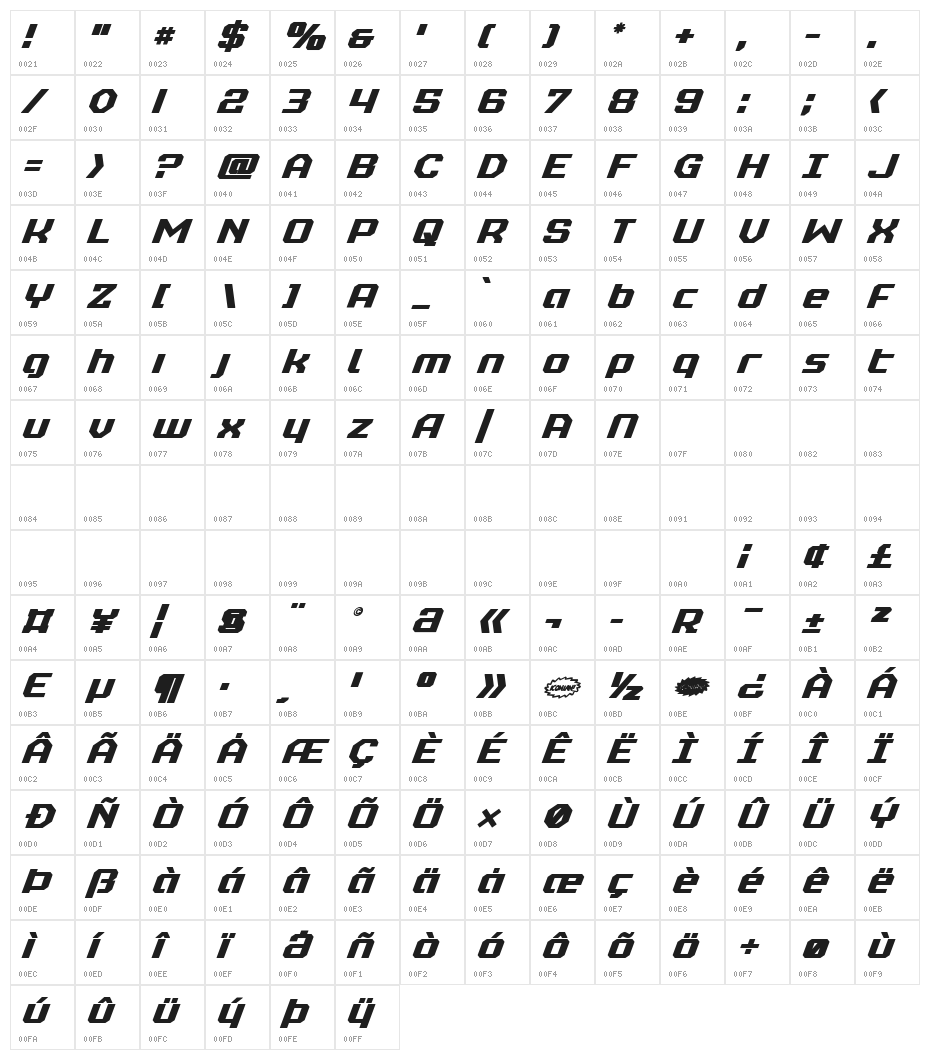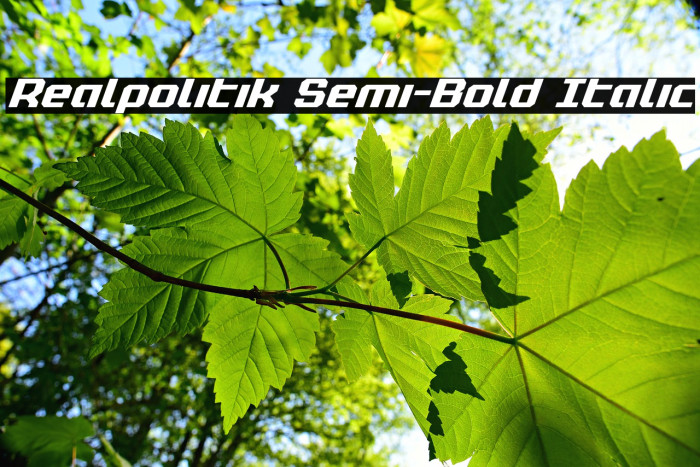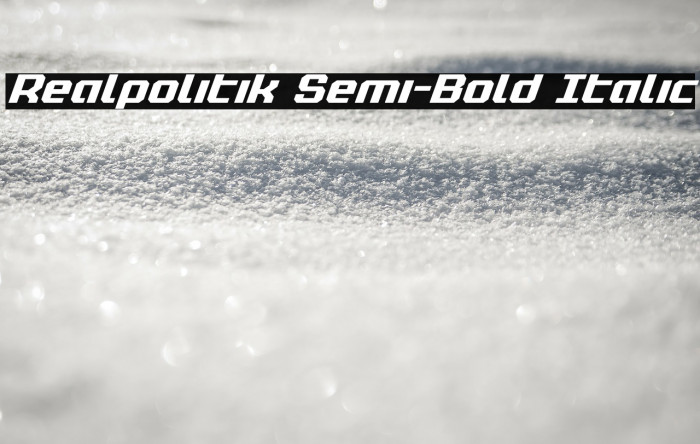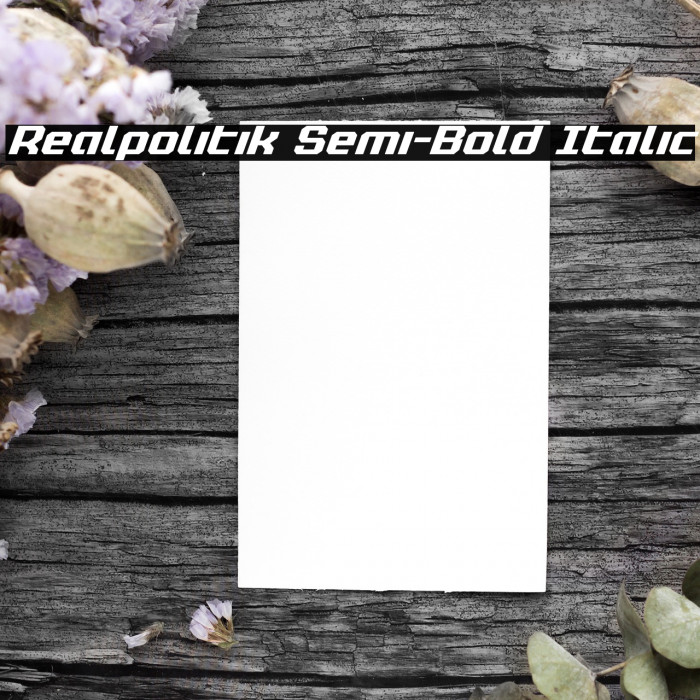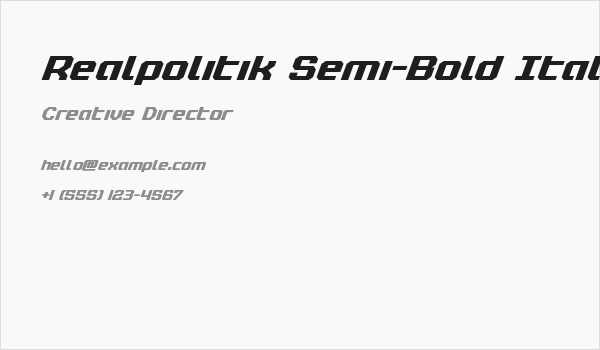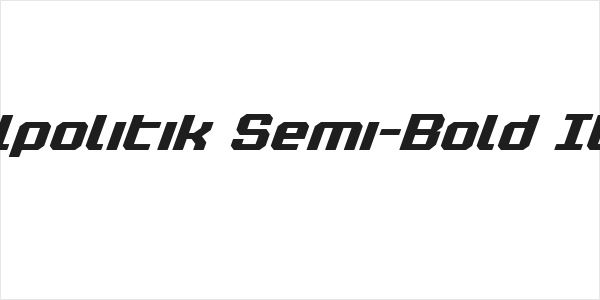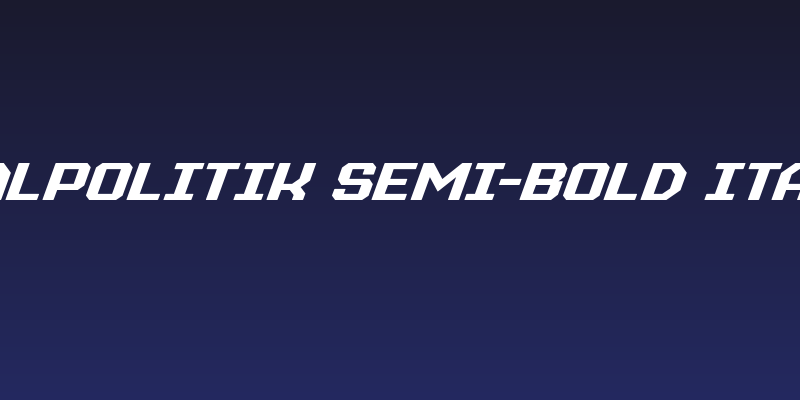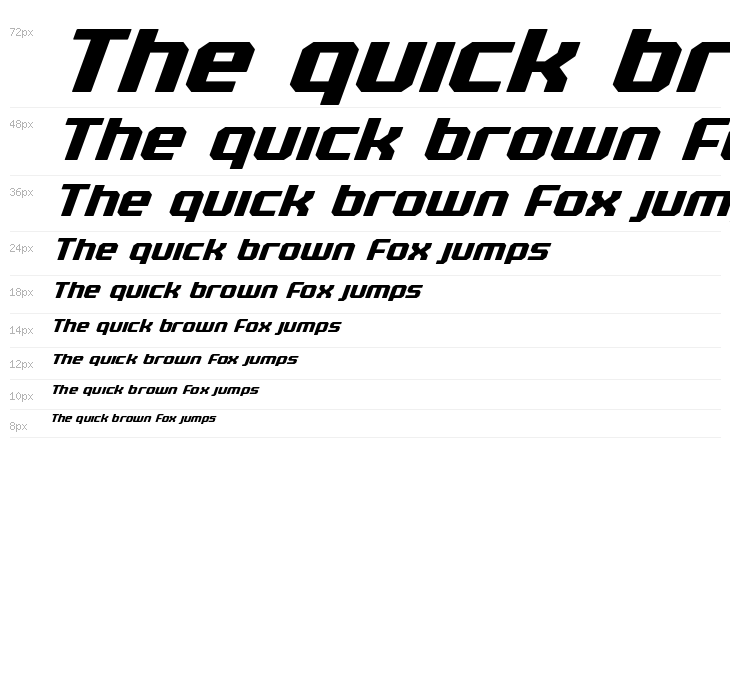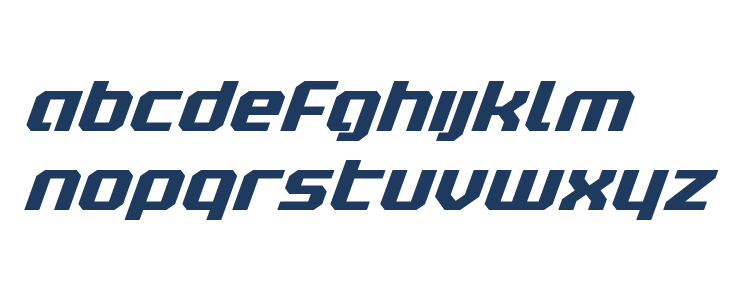
Realpolitik Semi-Bold Italic Font
Realpolitik Semi-Bold Italic Description
This font features a bold and italicized style with a modern, angular design. The characters are slightly slanted, giving a dynamic and forward-moving appearance. The strokes are thick, contributing to a strong presence, while the geometric shapes add a contemporary touch. The uppercase and lowercase letters maintain a consistent style, with sharp edges and a uniform thickness. Numbers and special characters follow the same design principles, ensuring a cohesive look across all elements. This font is ideal for making a bold statement, with its striking and assertive aesthetic.
| Proposed Projects | Ideal for branding, headlines, posters, and any design requiring a bold, modern look. |